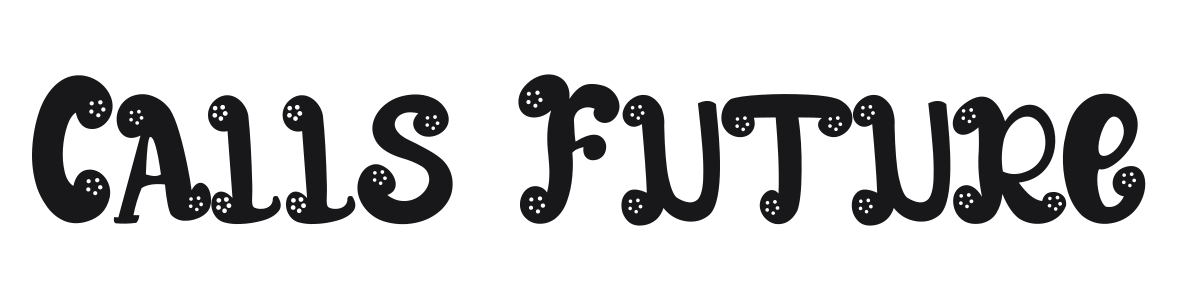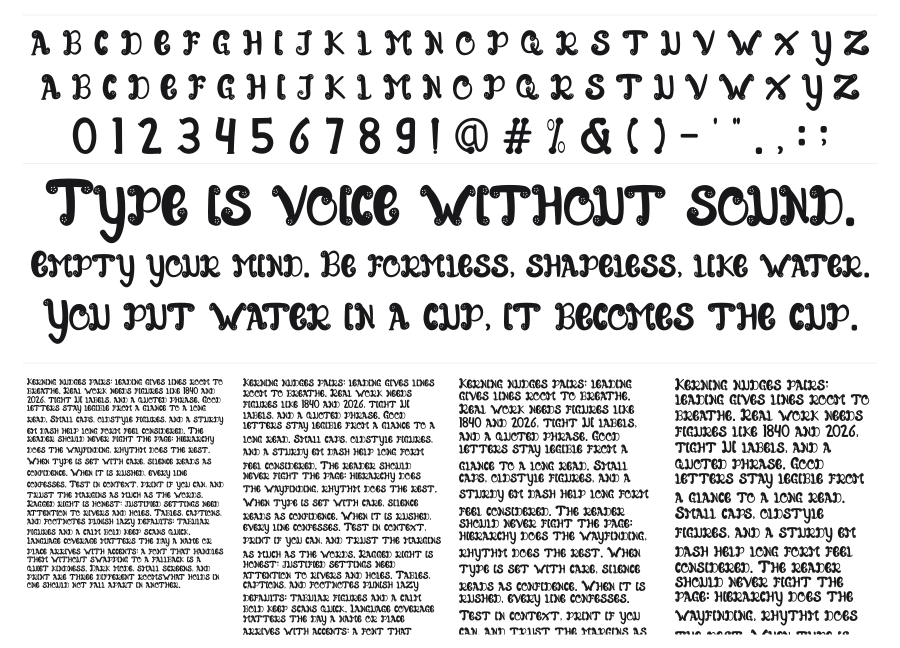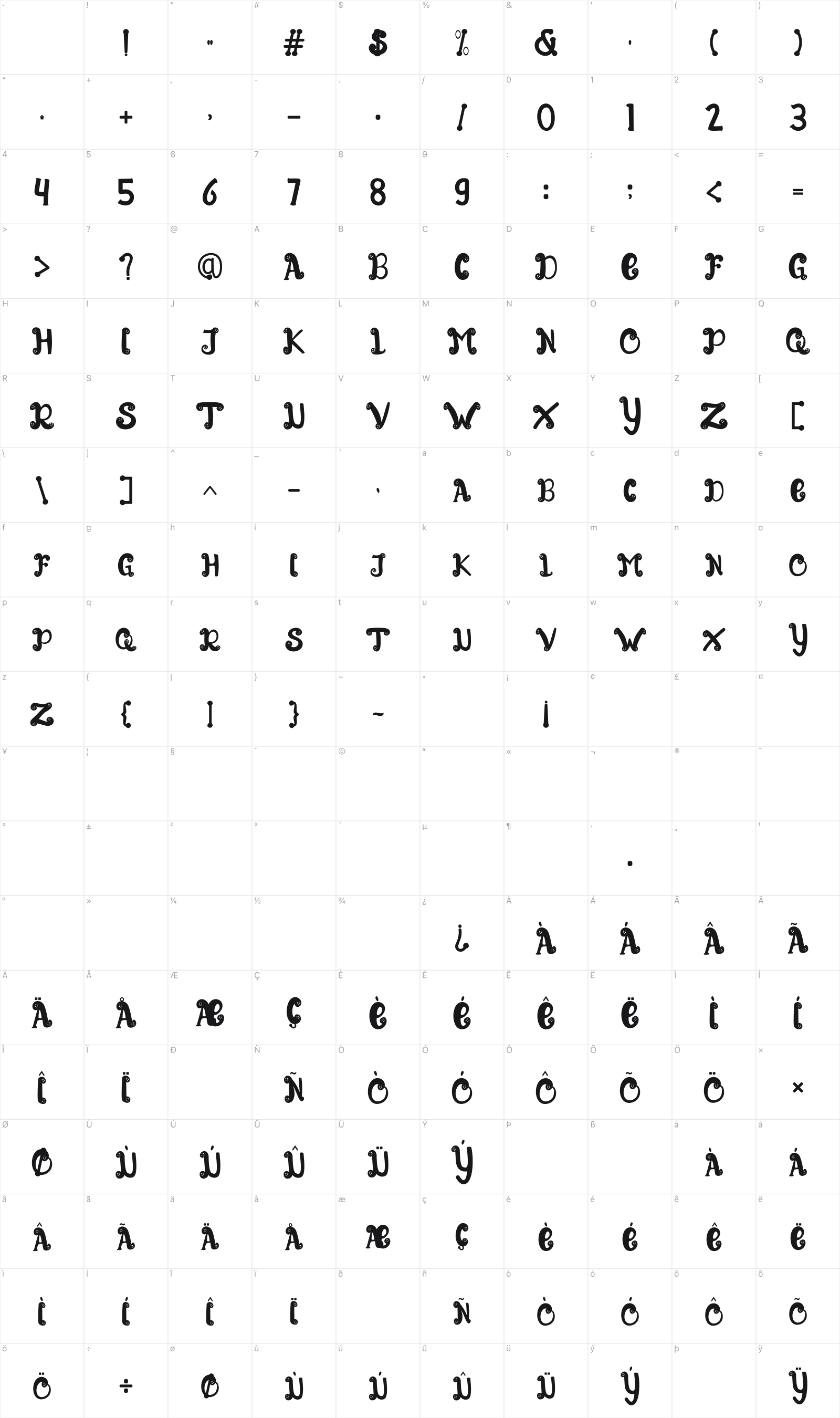
Calls Future
Calls Future is a bold serif display font distinguished by its ball terminals punched through with circular dot cutouts, creating a playful bubble or polka-dot effect across every character. The high-contrast strokes and rounded forms give it warmth and approachability, making it pop at large sizes. It carries a retro-casual energy that works well for youth brands, food packaging, and lighthearted editorial headlines.